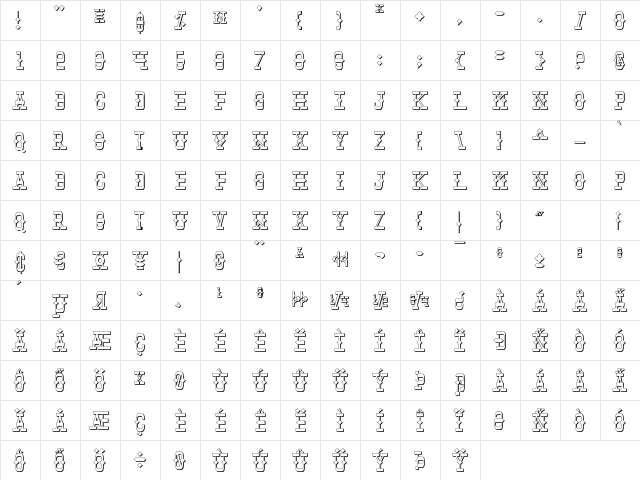
Tombstone Shadow Shadow
Style: Shadow
Design Context for Tombstone Shadow
Tombstone Shadow is built around its visual character rather than neutral utility - its distinctive forms are designed to make an impression at display sizes.
Font Pairing: Pair with a clean neutral sans-serif for body copy to let Tombstone Shadow's character lead without overwhelming the composition.
Pro Tip: Use Tombstone Shadow exclusively at display sizes - it was designed to be seen, not read at length. Let a neutral companion handle body copy.